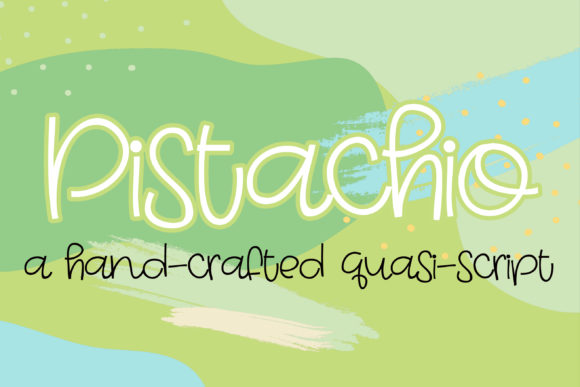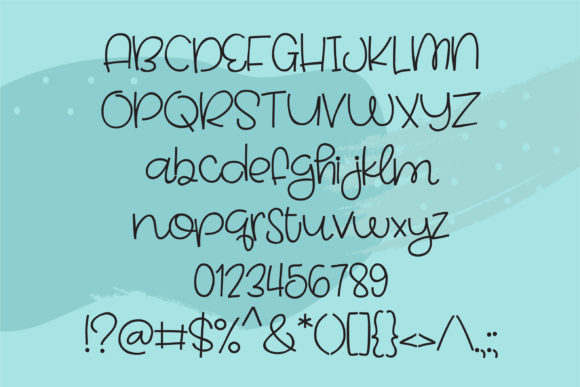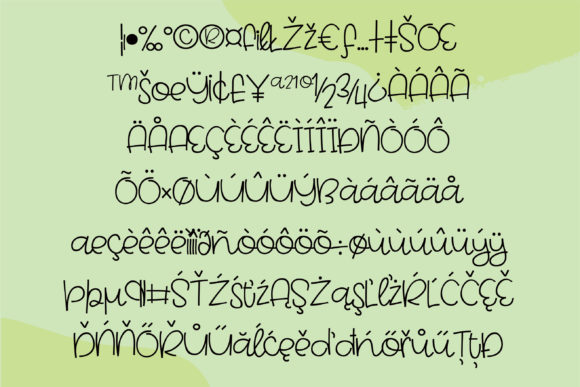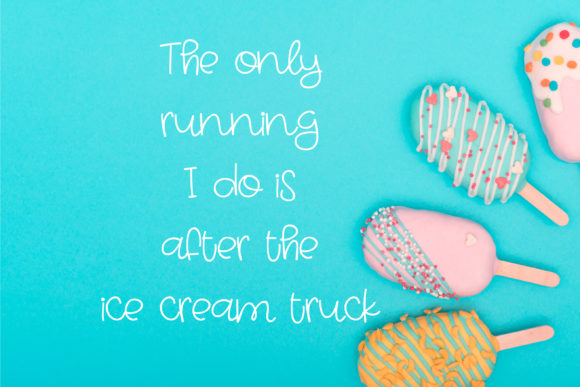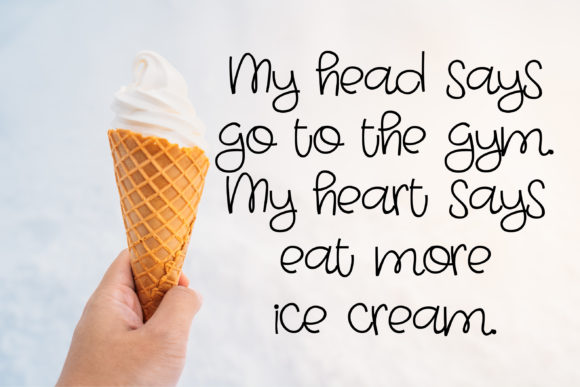
HomeScript FontsPistachio Font Script Fonts Pistachio Font FacebookXPinterestWhatsApp Pistachio Font Poster 2 Pistachio Font Poster 3 Pistachio Font Poster 4 Pistachio Font Poster 5 About Pistachio Font Pistachio is a sweet and charming handwritten font with an organic feel. Get inspired by its whimsical vibe. DOWNLOAD ON CREATIVE FABRICAThis font is sold and delivered by Creative Fabrica. Font Canyon may earn a commission if you buy through this link. People also explored Faliansiana Font Frader Font Spooky Font Gauntly Font Dogma Script Font Rossi Font Britania Font Mecha Joy Font Fishing Grounds Font 275 0 TagsPistachio Font Previous articleQuick Silver FontNext articleDragon Breath Font LEAVE A REPLY Cancel reply Comment: Please enter your comment! Name:* Please enter your name here Email:* You have entered an incorrect email address! Please enter your email address here Website: Save my name, email, and website in this browser for the next time I comment. Personal Use Free Coffete Personal Use Free Read more about this font Banana Valentine Personal Use Free Read more about this font Bukan Personal Use Free Read more about this font Camping Personal Use Free Read more about this font BLOG Elegant Wedding Invitation Fonts – Handwritten & Script Fonts Elegant Wedding Invitation Fonts Your wedding day is one of the most important moments of your life, and every detail matters—including your invitation design. Our... Transform Your Website: Elevate Your Typography with 7 Best Web Font Generators Where to Buy American Fonts Online in 2024 Fonts That Capture the Spirit of New York City